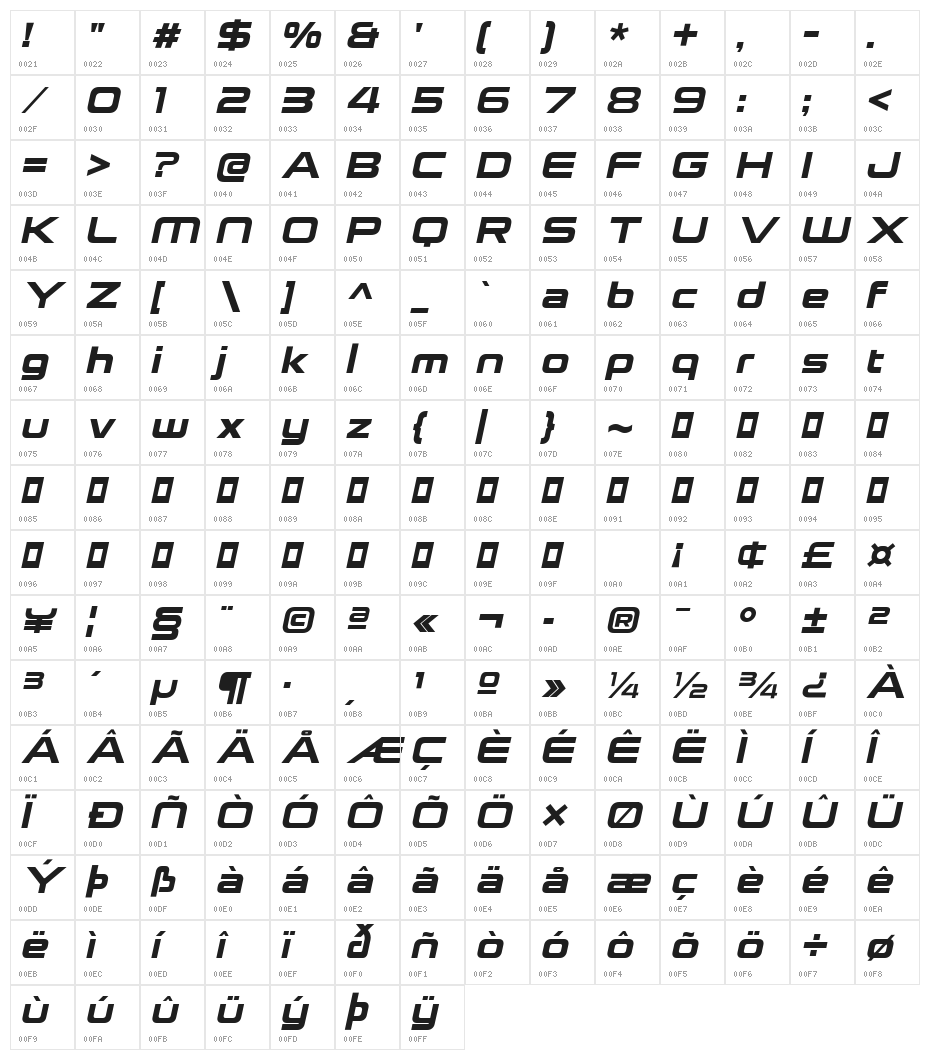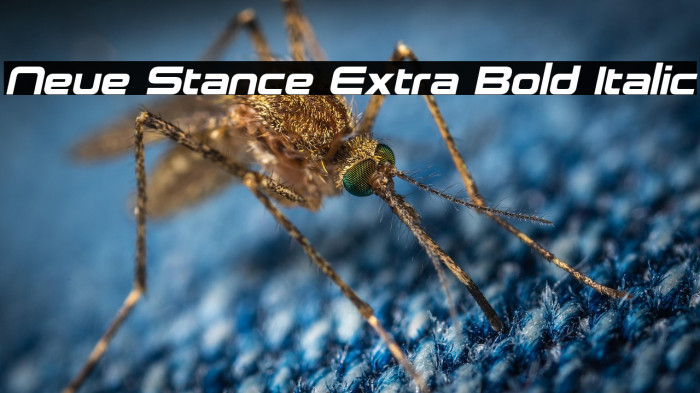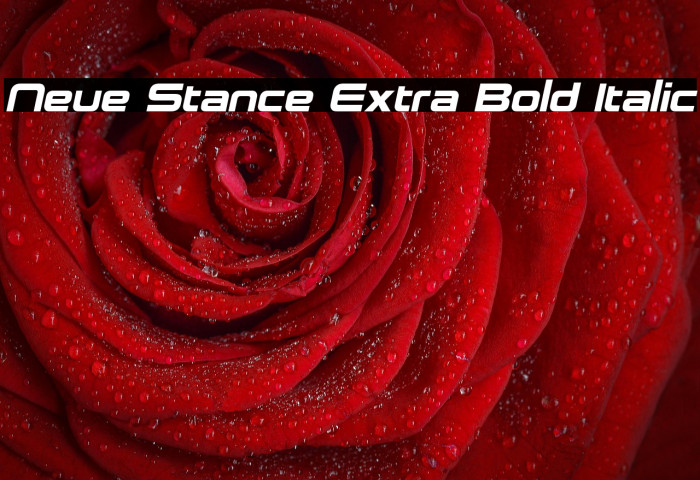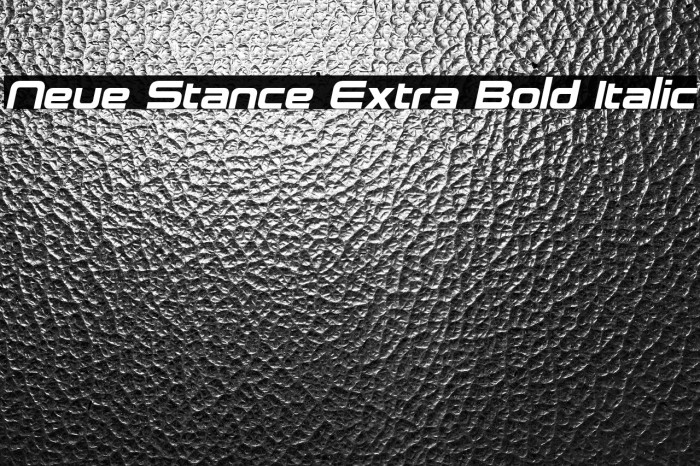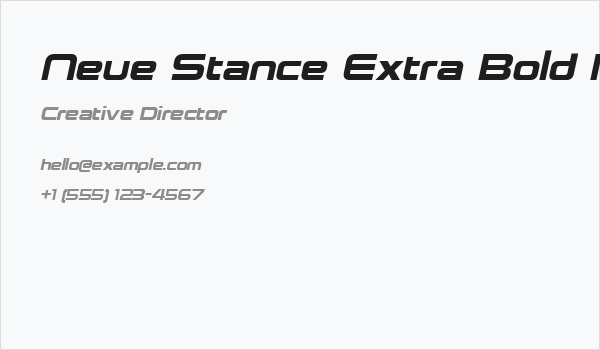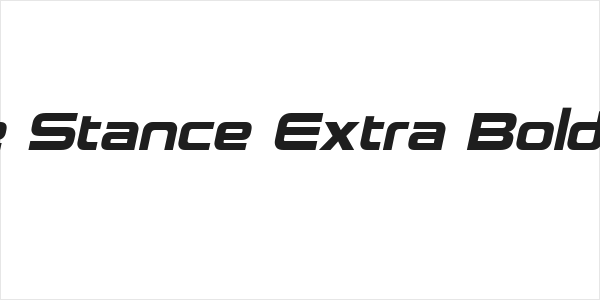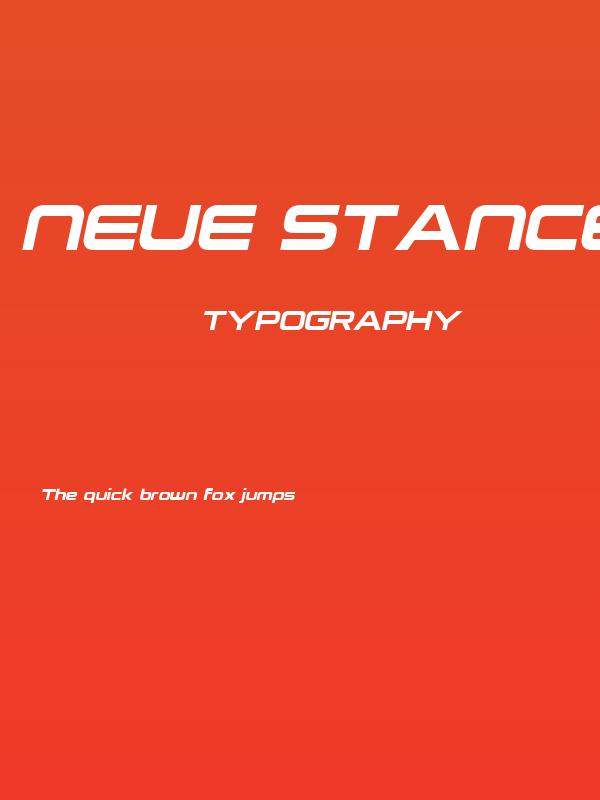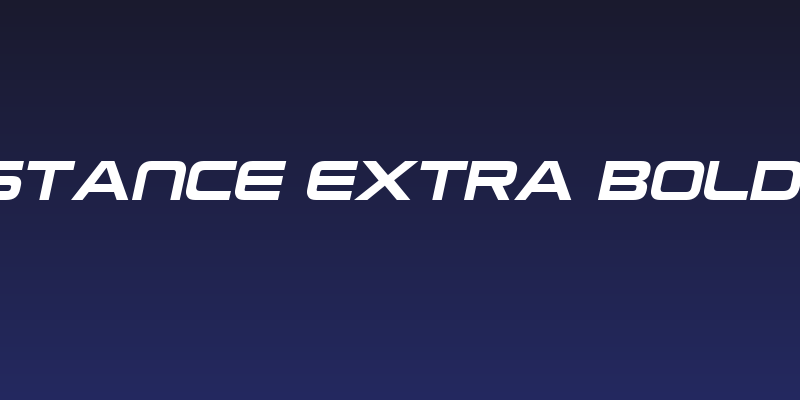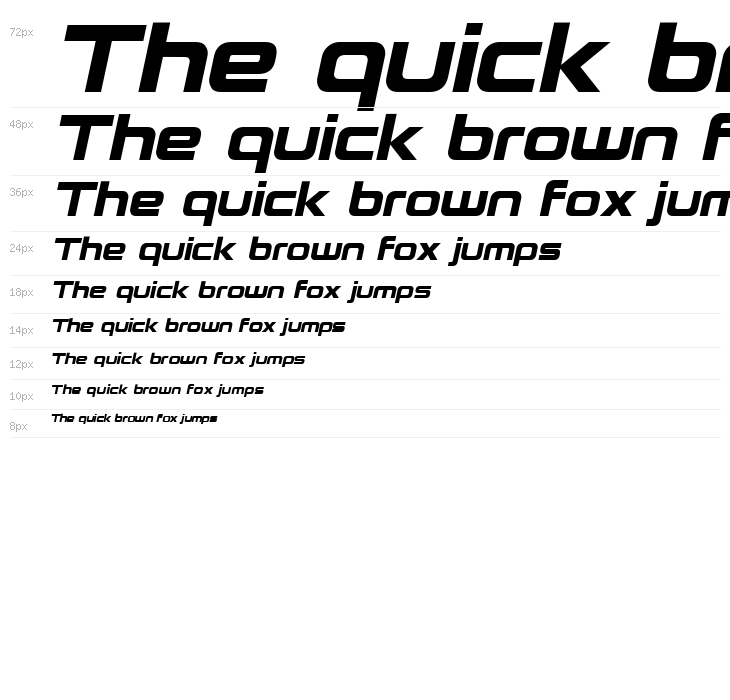
Neue Stance Extra Bold Italic Font
Neue Stance Extra Bold Italic Description
This font exhibits a dynamic and modern aesthetic with a strong emphasis on angular lines and a forward-leaning stance. The characters are bold and italicized, creating a sense of movement and energy. The uppercase and lowercase letters maintain a consistent style, with sharp edges and a geometric structure. The numerals and special characters follow the same design principles, ensuring uniformity across all glyphs. The overall appearance is sleek and contemporary, making it suitable for projects that require a bold and assertive visual impact.
| Proposed Projects | Ideal for sports branding, tech-related designs, automotive advertising, and dynamic logo creation. |